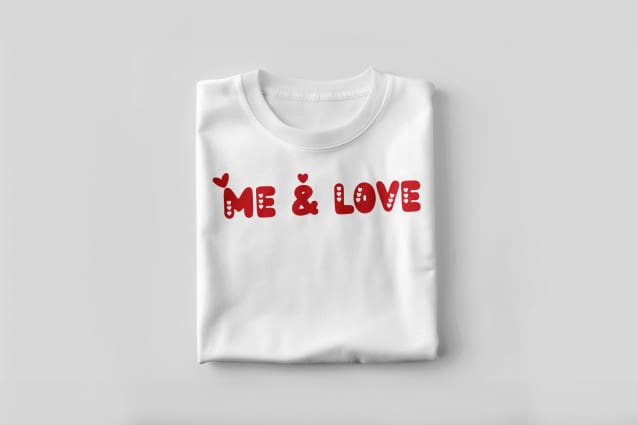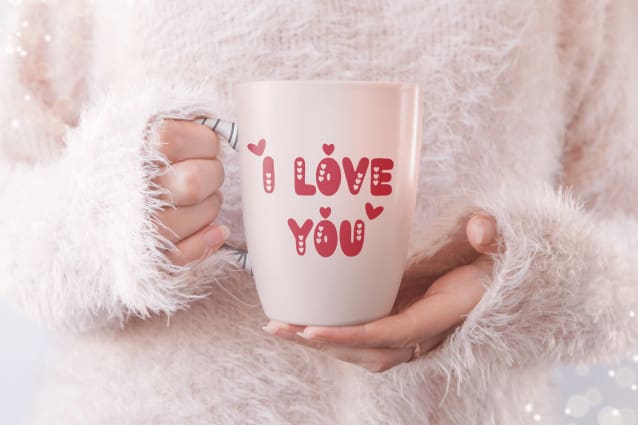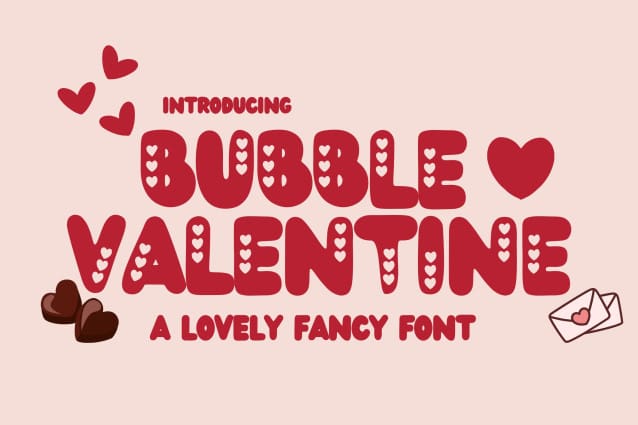
Bubble Valentine Font
Bubble Valentine Font – Lovely Fancy Font is a charming and playful typeface designed to bring joy and romance to your designs. Perfect for Valentine’s Day projects, wedding invitations, greeting cards, and love-themed designs, this font features fun bubble-style letters with adorable heart details. With its whimsical and affectionate aesthetic, Bubble Valentine adds a delightful touch to every project.